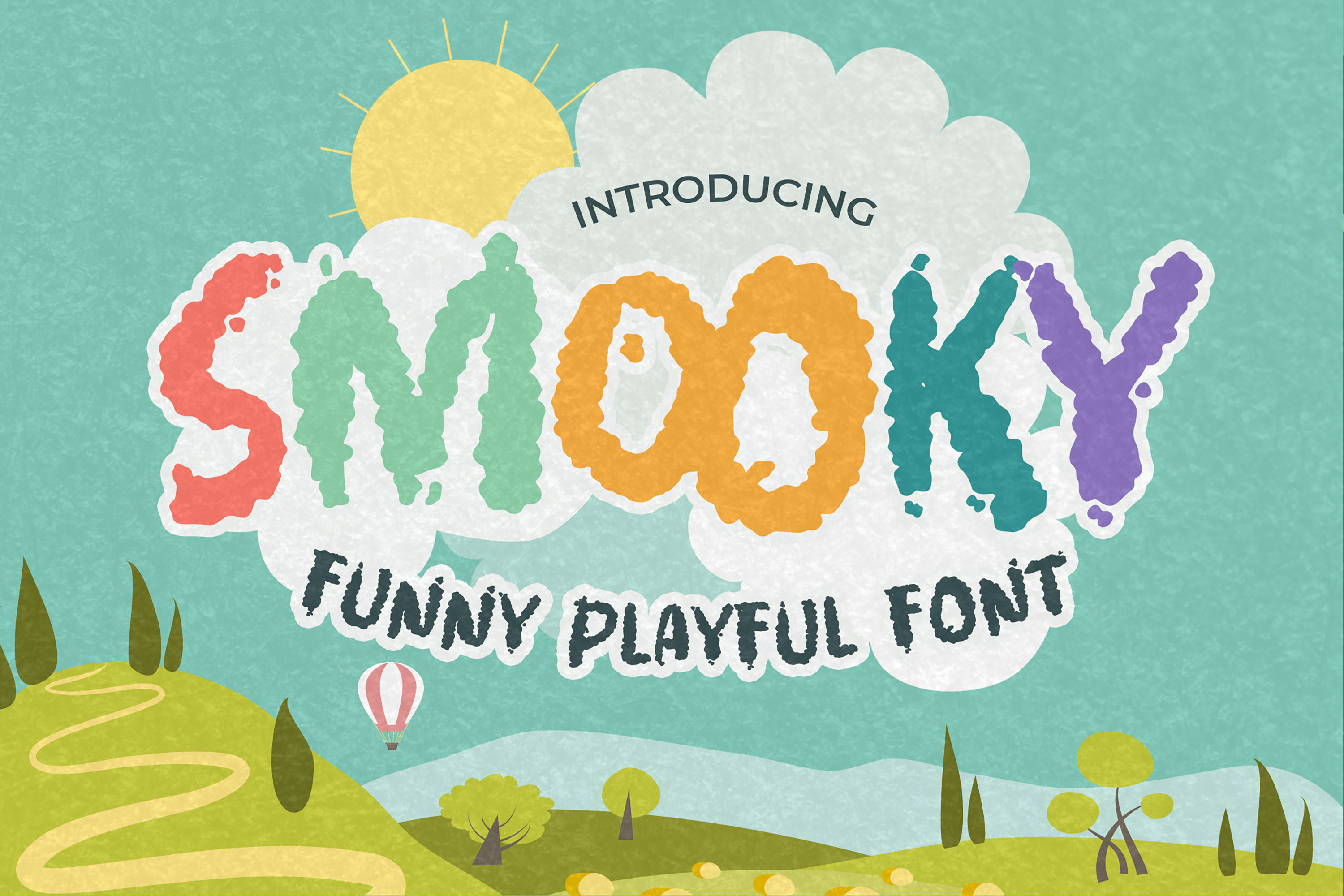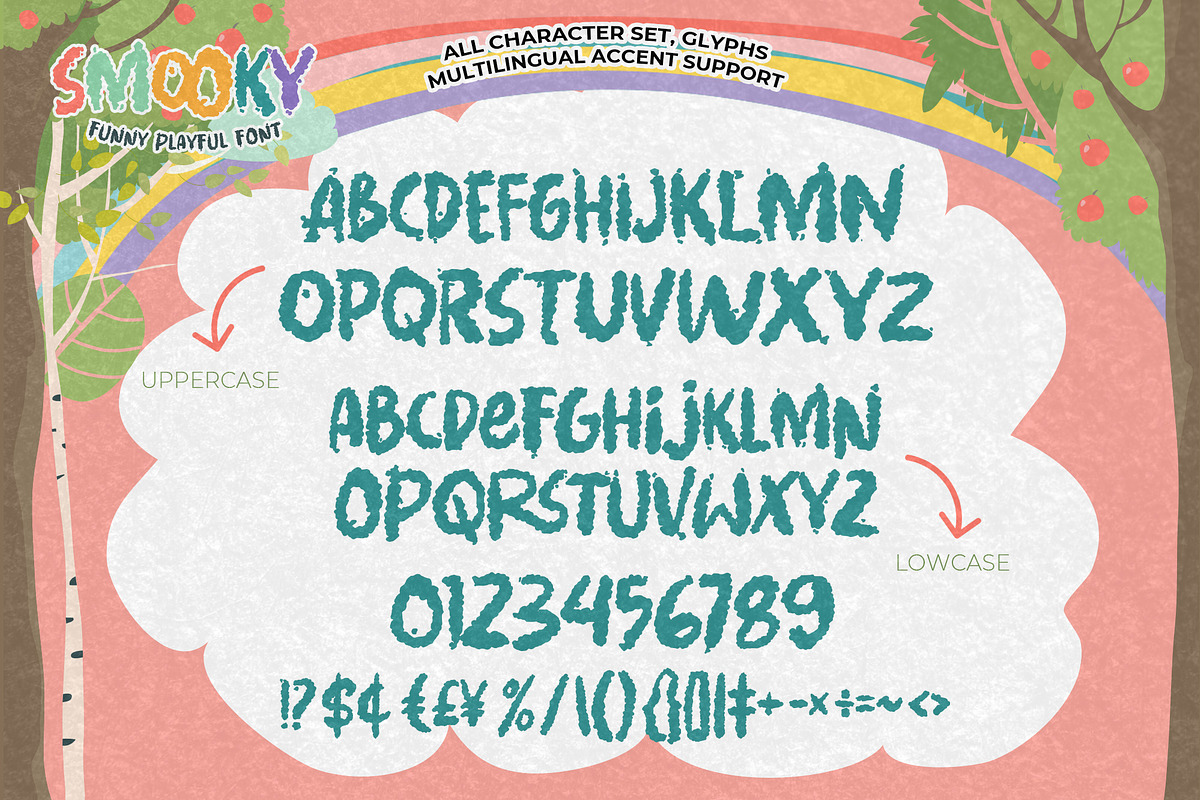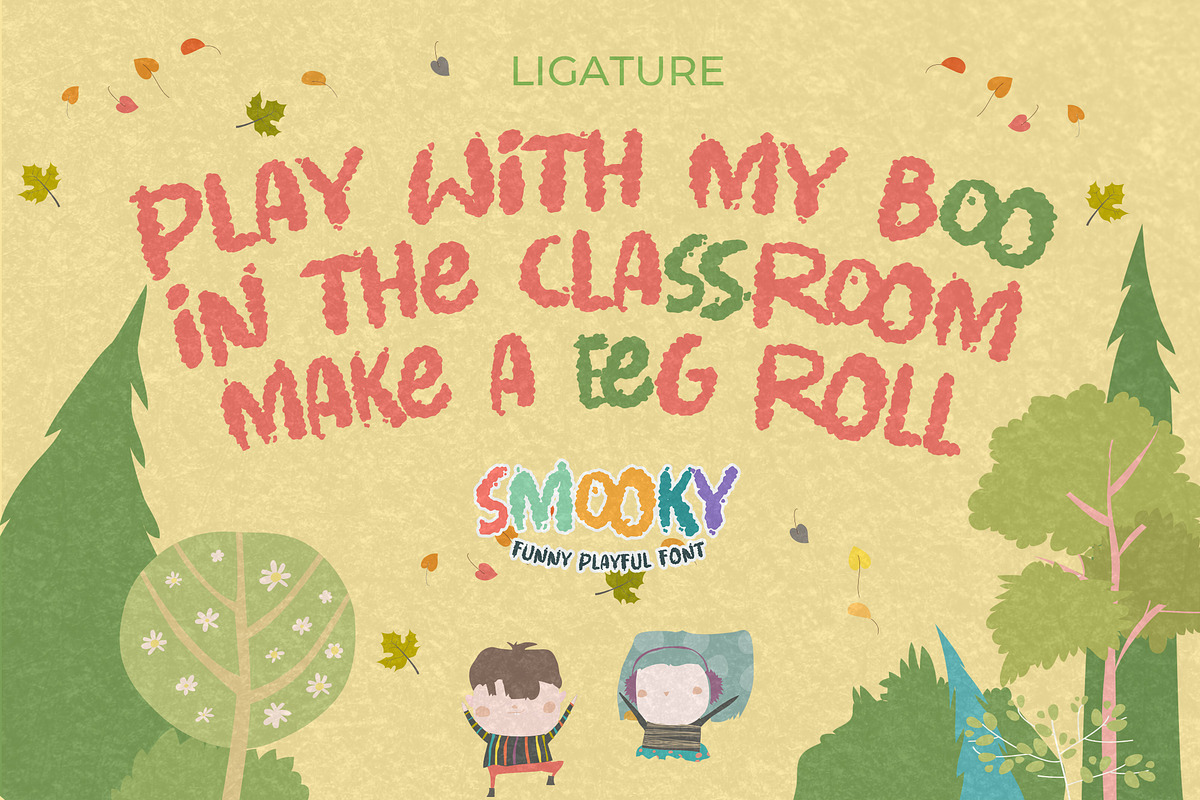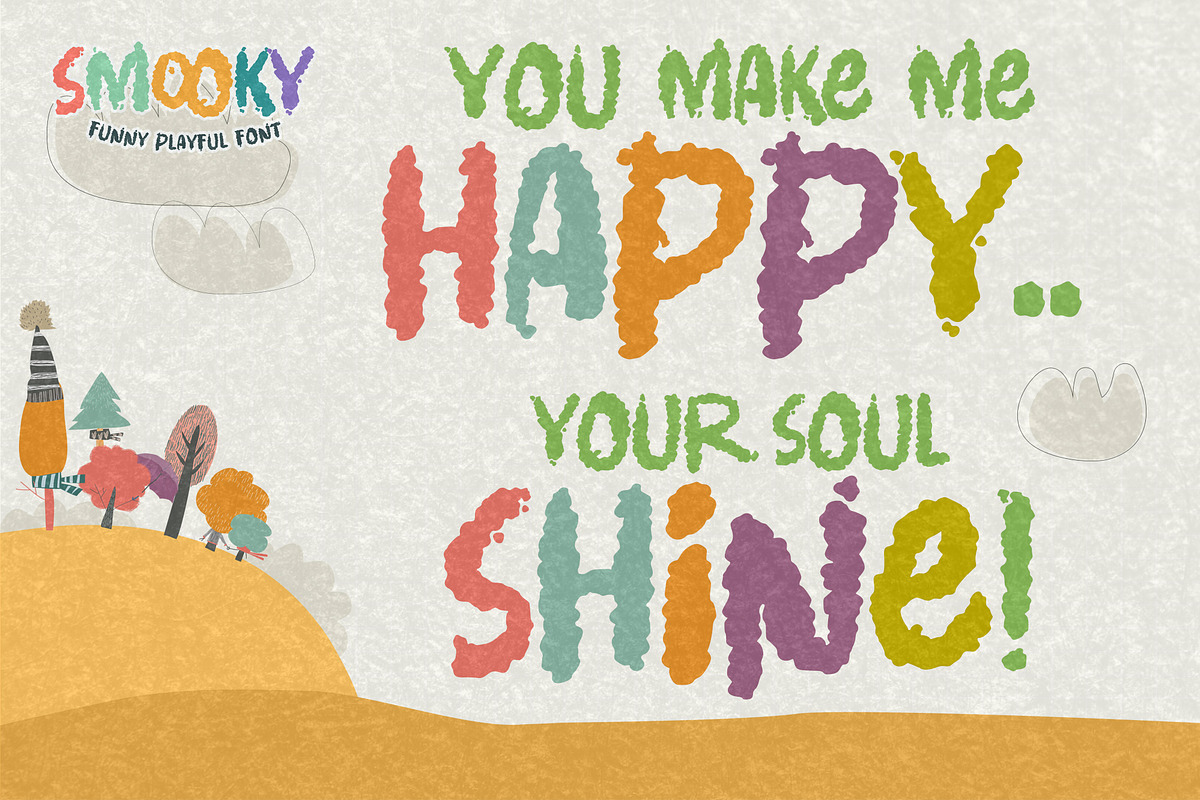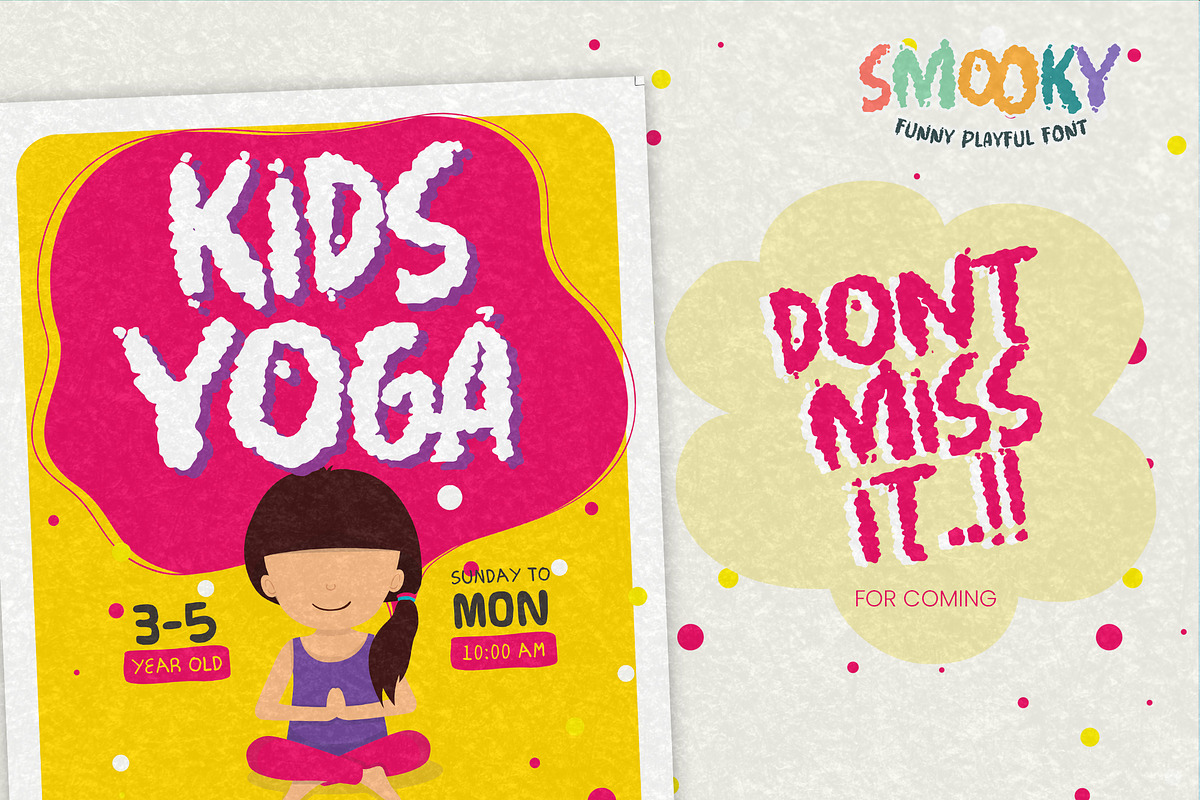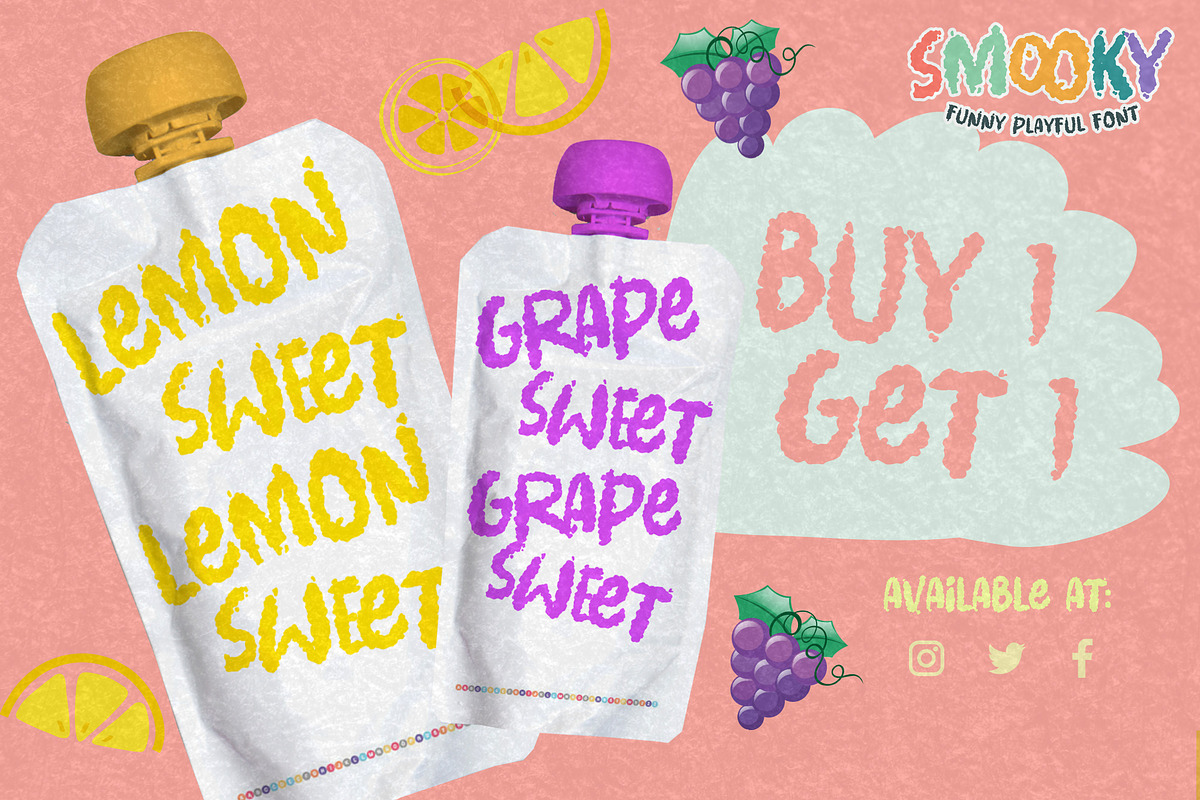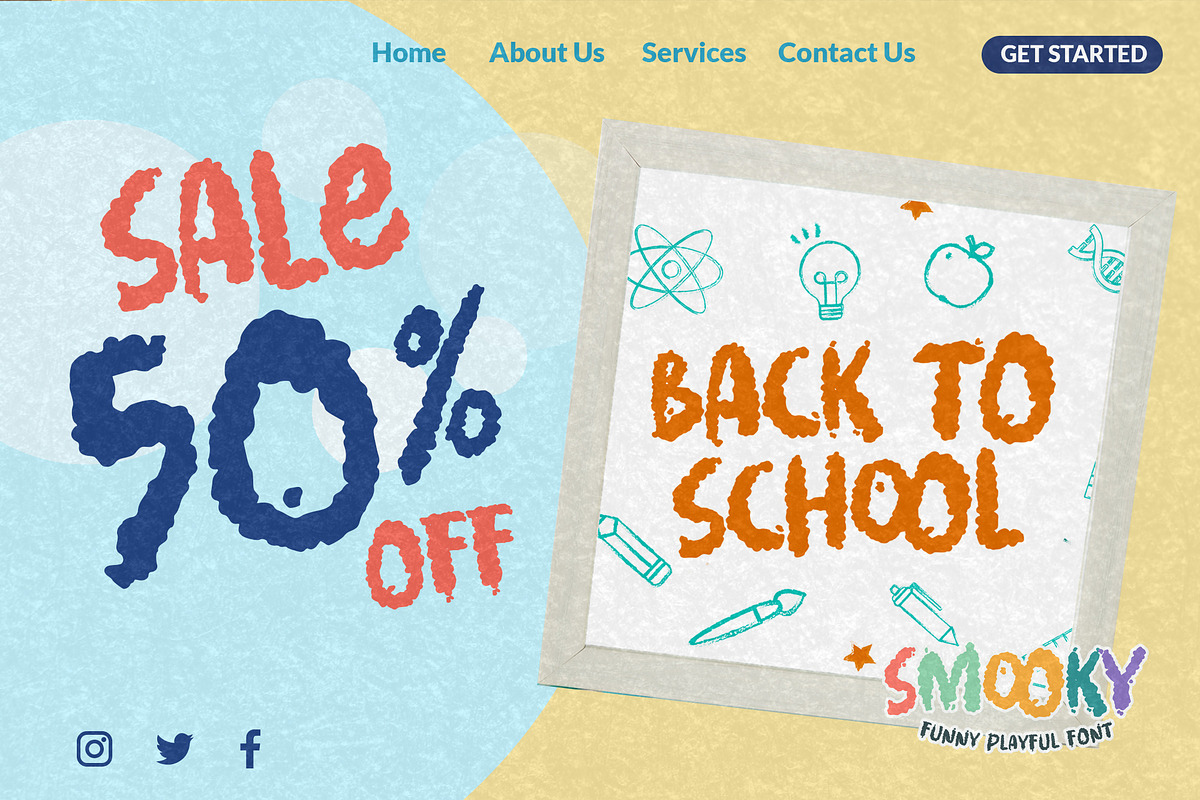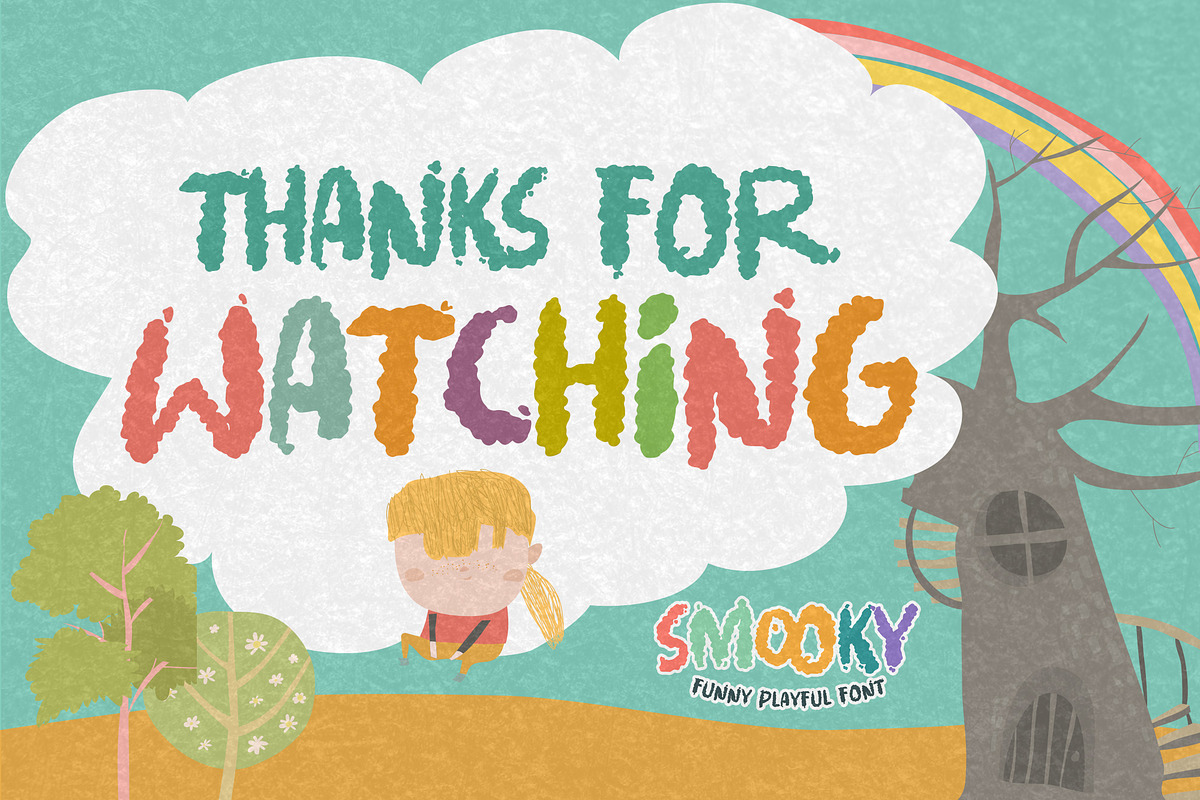
Smooky - Funny Playful Font
Smooky is Funny Playful Font Use it for any project that needs a cheerful and playful look! Perfect for labels, quotes, posters, DIY projects, branding, packaging, greeting cards, websites, photography kids,child,window art, scrapbooking, tags and so much more!